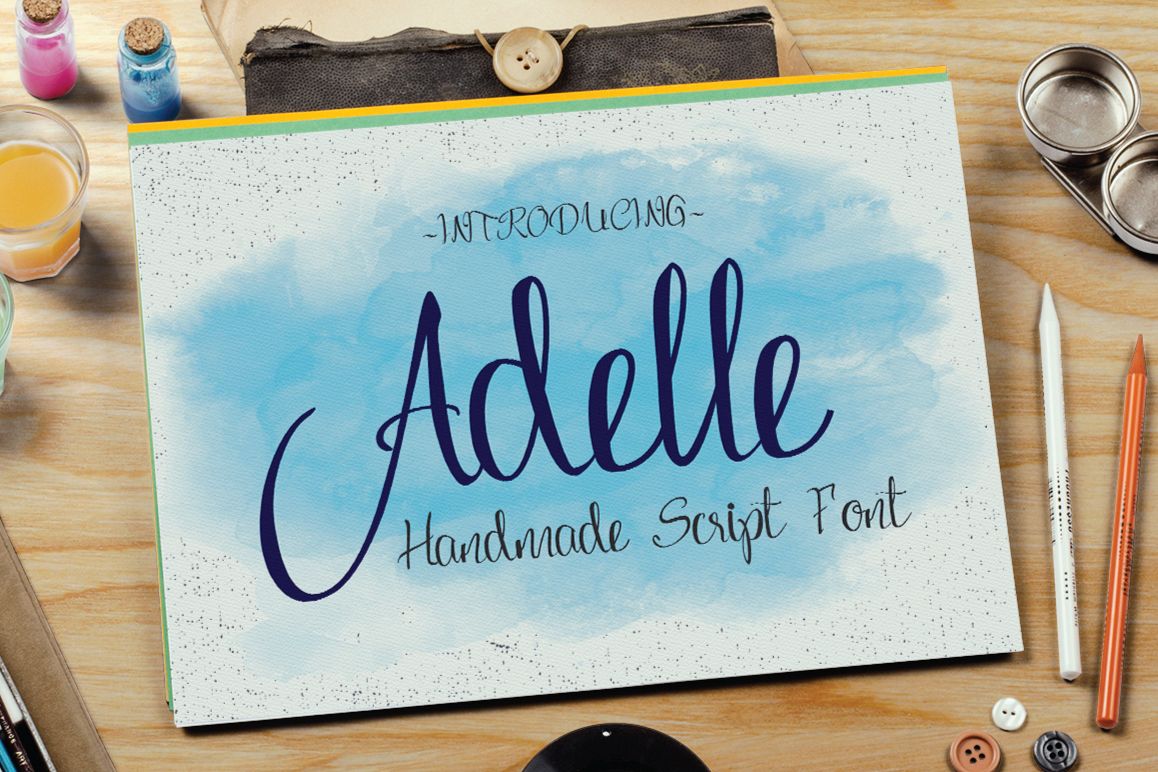
Adelle Script Typeface
Introducing "Adelle Script Handwriting Typeface" Can be used for various purposes namely headings, signatures, logos, wedding invitations, t-shirts, letterheads, signages, labels, news, posters, badges etc. It is ONLY $10 for a limited time! :) Product Content: Adelle Script.otf Adelle Script.ttf Adelle Script Web Font (eot, svg, woff) Features: Uppercase Lowercase Numeral & Punctuations (Open Type Standard) Ligatures Use a program that supports OpenType features such as Adobe Illustrator CS, Adobe Indesign & CorelDraw X6-X7 to access the full features of this typeface. How-to pdf included in the package. Feel free to contact me for additional supports. Personal and Commercial use are permitted